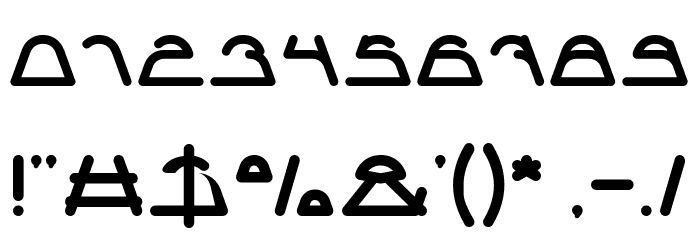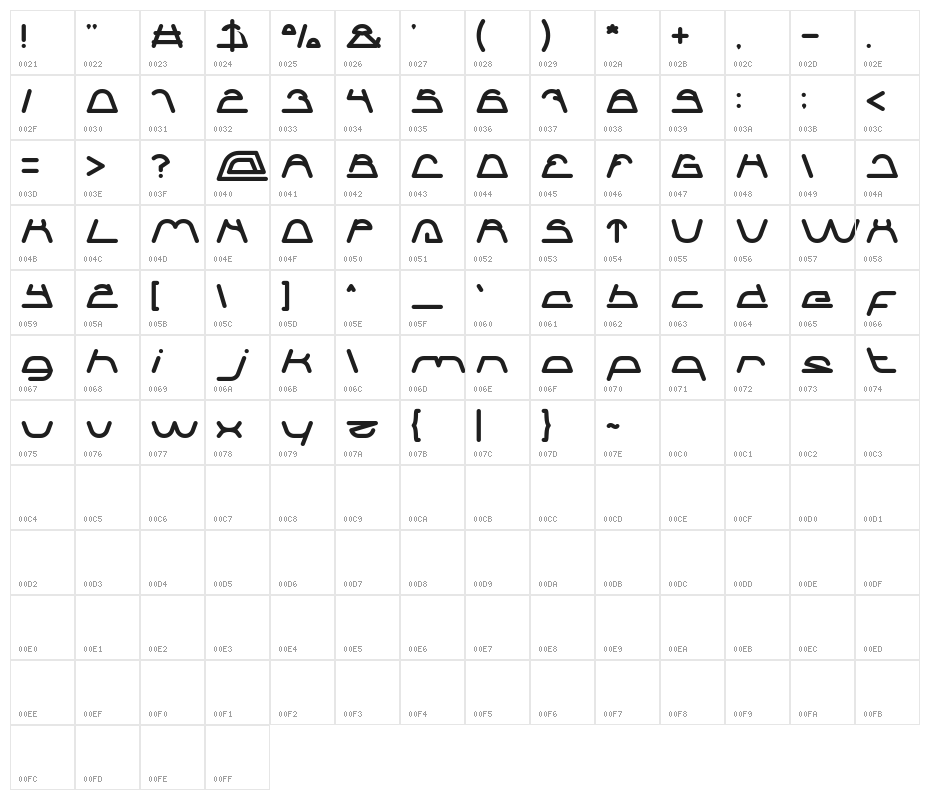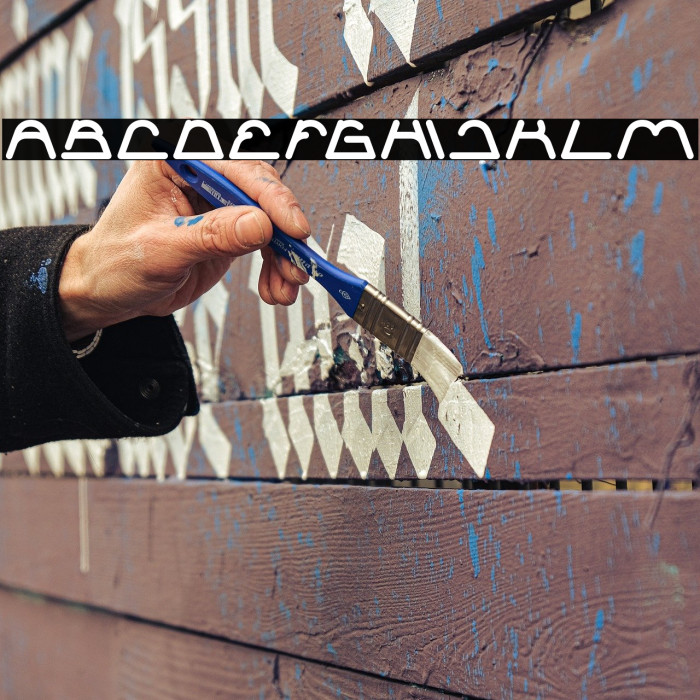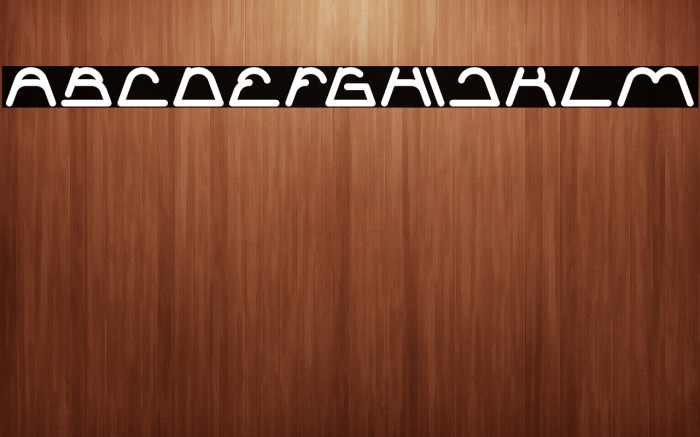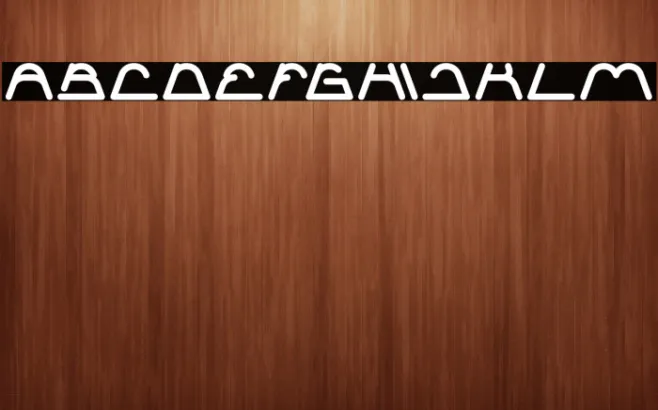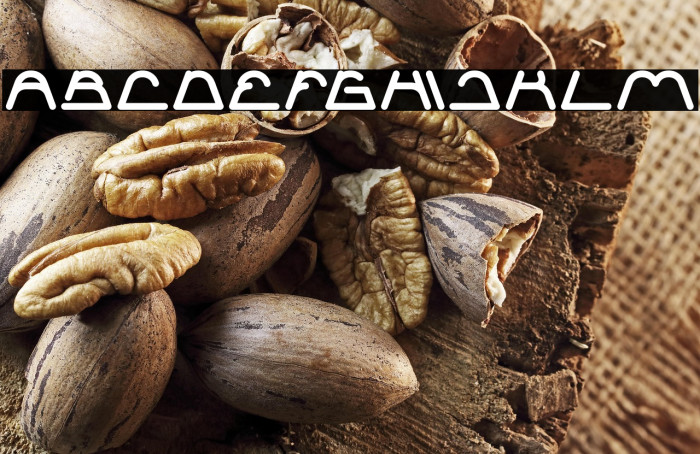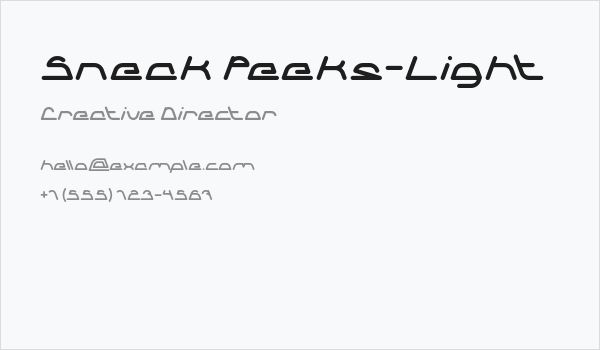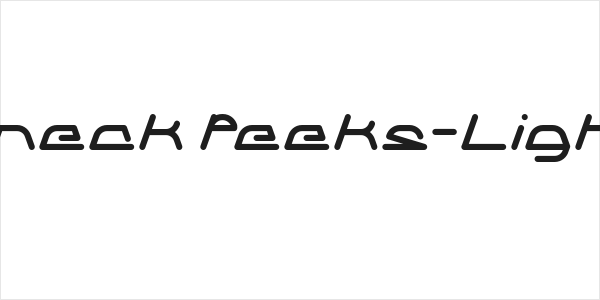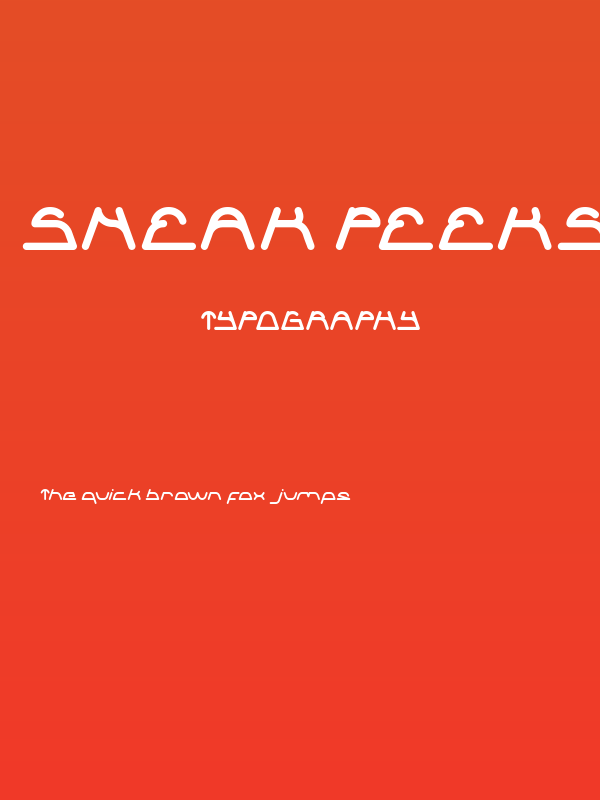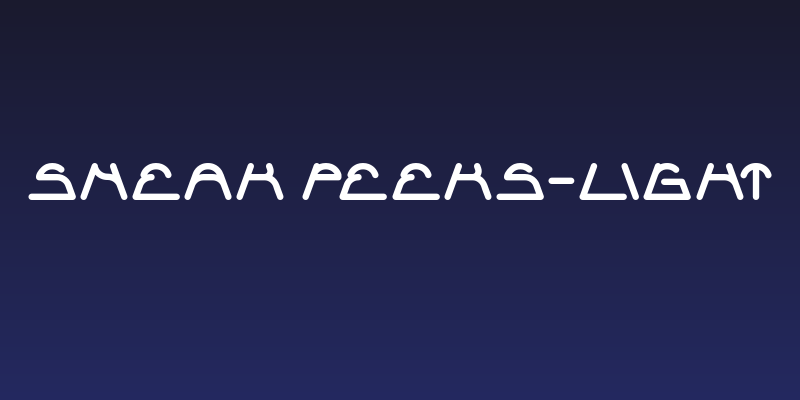
Sneak Peeks-Light Font
Sneak Peeks-Light Description
This font features a futuristic and geometric design, characterized by its rounded edges and unique angular cuts. The letters are crafted with a consistent stroke width, giving it a uniform appearance. The uppercase and lowercase letters maintain a cohesive style, with the lowercase mirroring the uppercase in form but with slight variations in size and proportion. Numbers and special characters follow the same design principles, ensuring a harmonious look across all characters. The font's distinct style makes it suitable for creative and modern applications, where a bold and unconventional typeface is desired.
| Proposed Projects | Ideal for sci-fi themed designs, tech branding, modern posters, and digital artwork. |